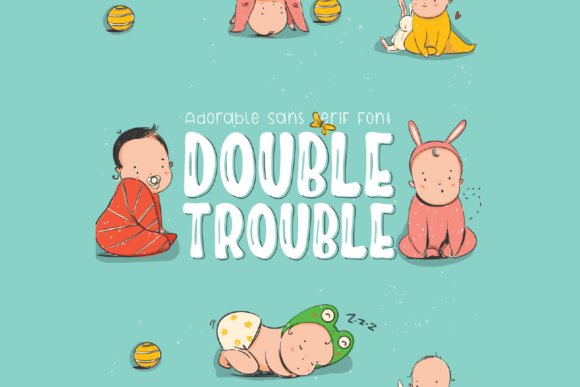
Step into the extraordinary world of Double Trouble, a captivating display font that dances upon the lines of imagination and delight. Its playful characters, reminiscent of joyous laughter, ignite a spark of childlike wonder in your designs. Let Double Trouble's enchanting presence grace your creations, whether they be cartoonish capers, whimsical games, or any endeavor yearning for a touch of irresistible charm.
Immerse yourself in the boundless versatility of Double Trouble, a font that seamlessly adapts to your diverse design needs. Unleash your creativity, crafting logos that exude playfulness, branding that radiates warmth, and invitations that overflow with infectious joy. With Double Trouble as your creative companion, ordinary designs transform into captivating experiences that leave a lasting impression.
Feel the exhilarating rush of freedom as Double Trouble liberates your artistic spirit. Its user-friendly nature invites you on an adventure, where experimentation is not just encouraged, it's celebrated. Explore a world of possibilities, where your imagination knows no bounds. Let your designs burst forth with unique personalities, reflecting the vibrant essence of Double Trouble.
Step into the spotlight with Double Trouble, the font that propels your designs to new heights of excellence. Its ability to capture attention is undeniable, drawing eyes to your creations like moths to a flame. Experience the satisfaction of witnessing your designs come alive, their messages amplified by the captivating presence of Double Trouble. Prepare to bask in the admiration and applause as your designs captivate audiences, leaving them spellbound.
Craft logos that radiate a playful spirit, branding that leaves an unforgettable impression, and invitations that ignite anticipation. Double Trouble's remarkable adaptability ensures that your designs effortlessly align with your unique style. Let your creativity soar, knowing that Double Trouble will effortlessly elevate your vision, transforming your ideas into tangible expressions of brilliance.